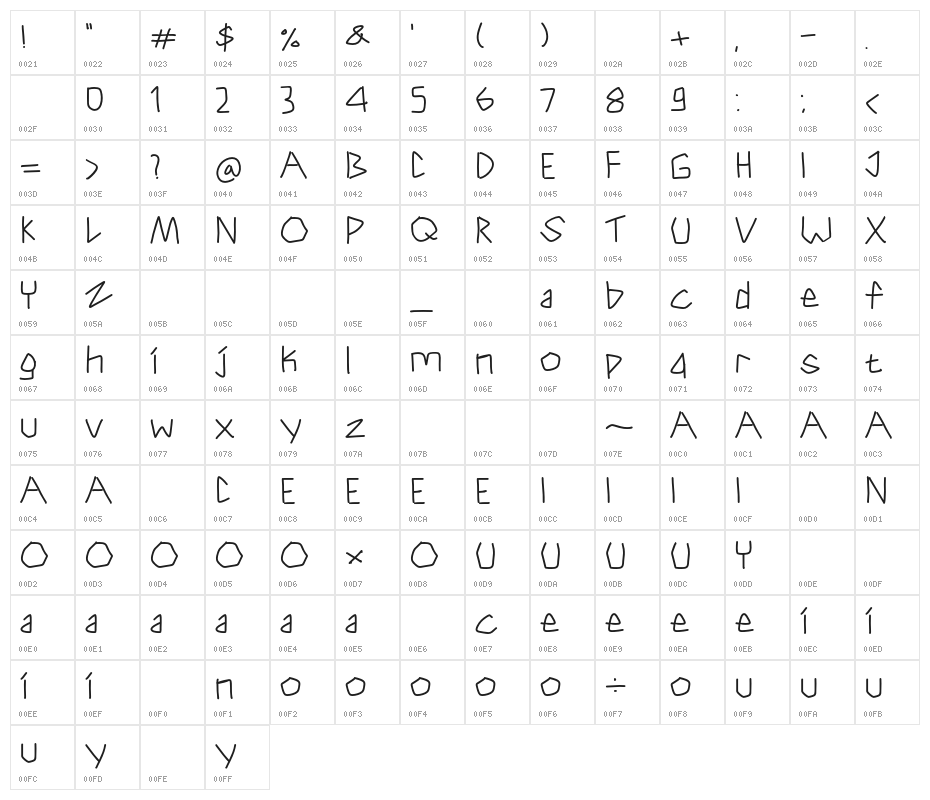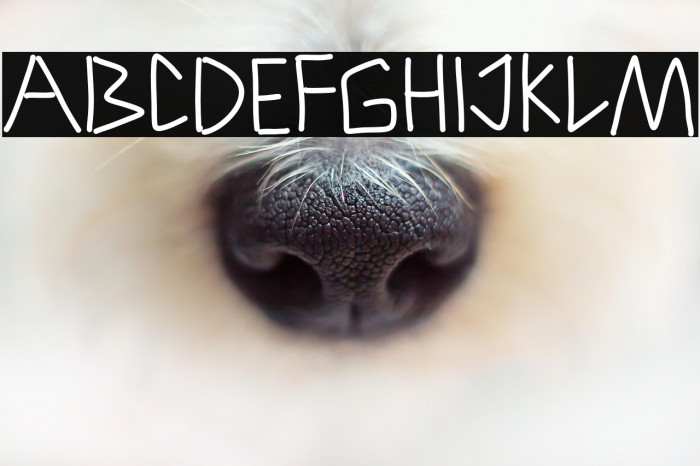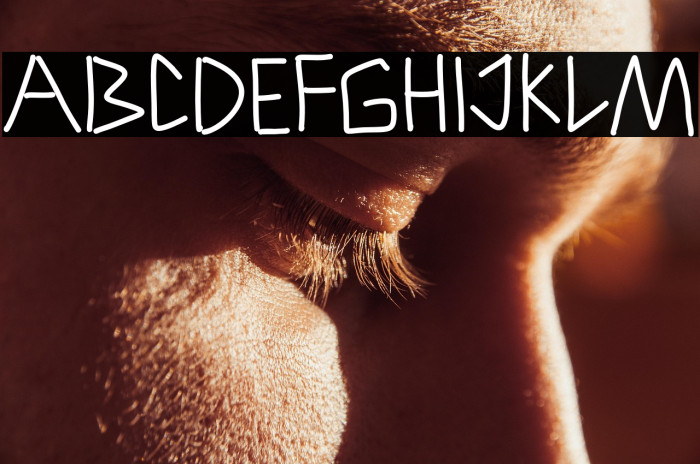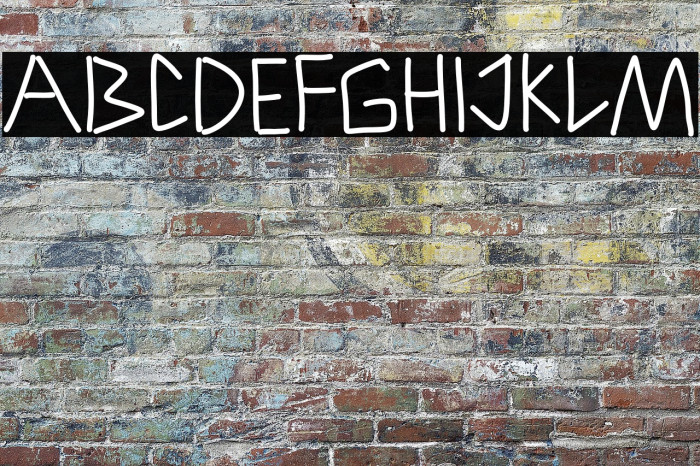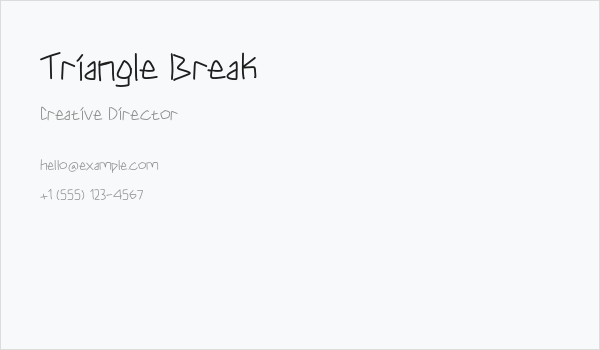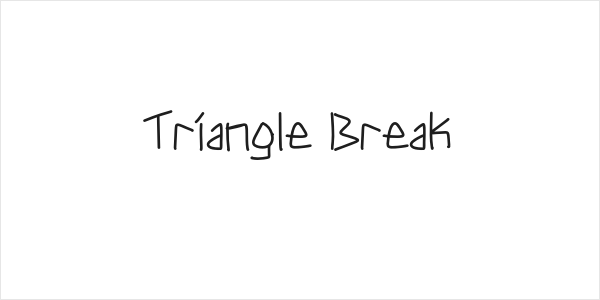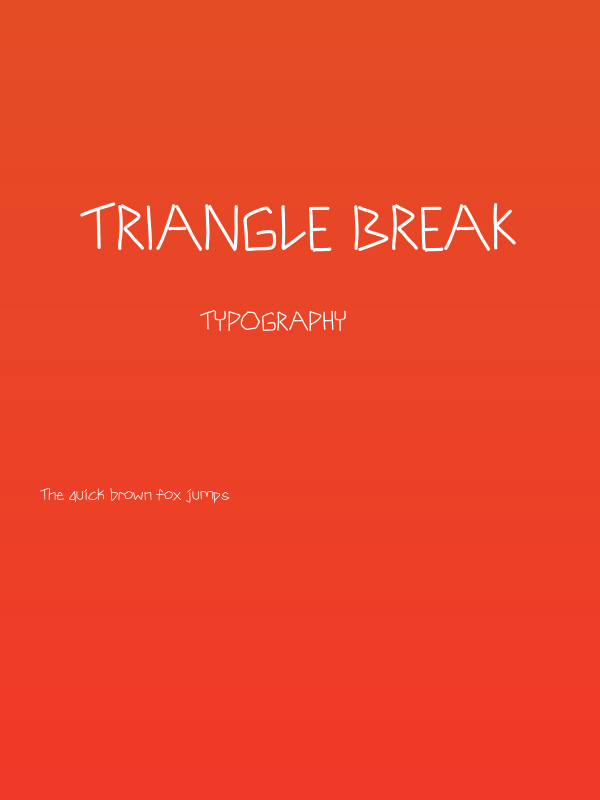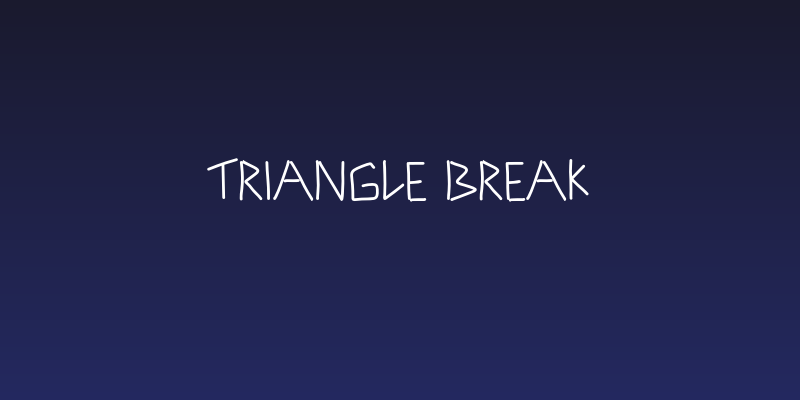
Triangle Break Font
Triangle Break Description
A playful, handwritten font with irregular strokes and a casual appearance.
| Overall Style | Casual, Playful |
| Use Case | Informal text, Creative projects |
| Proposed Projects | Greeting cards, children's books, casual branding. |